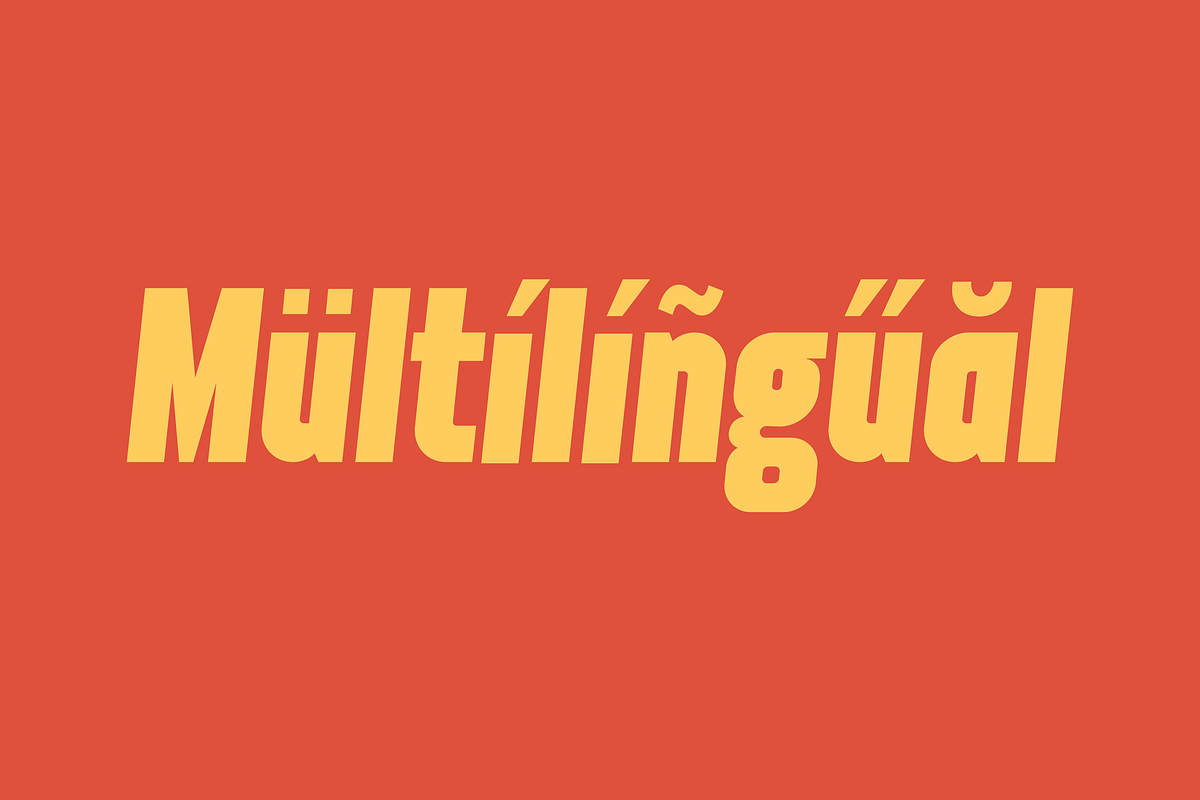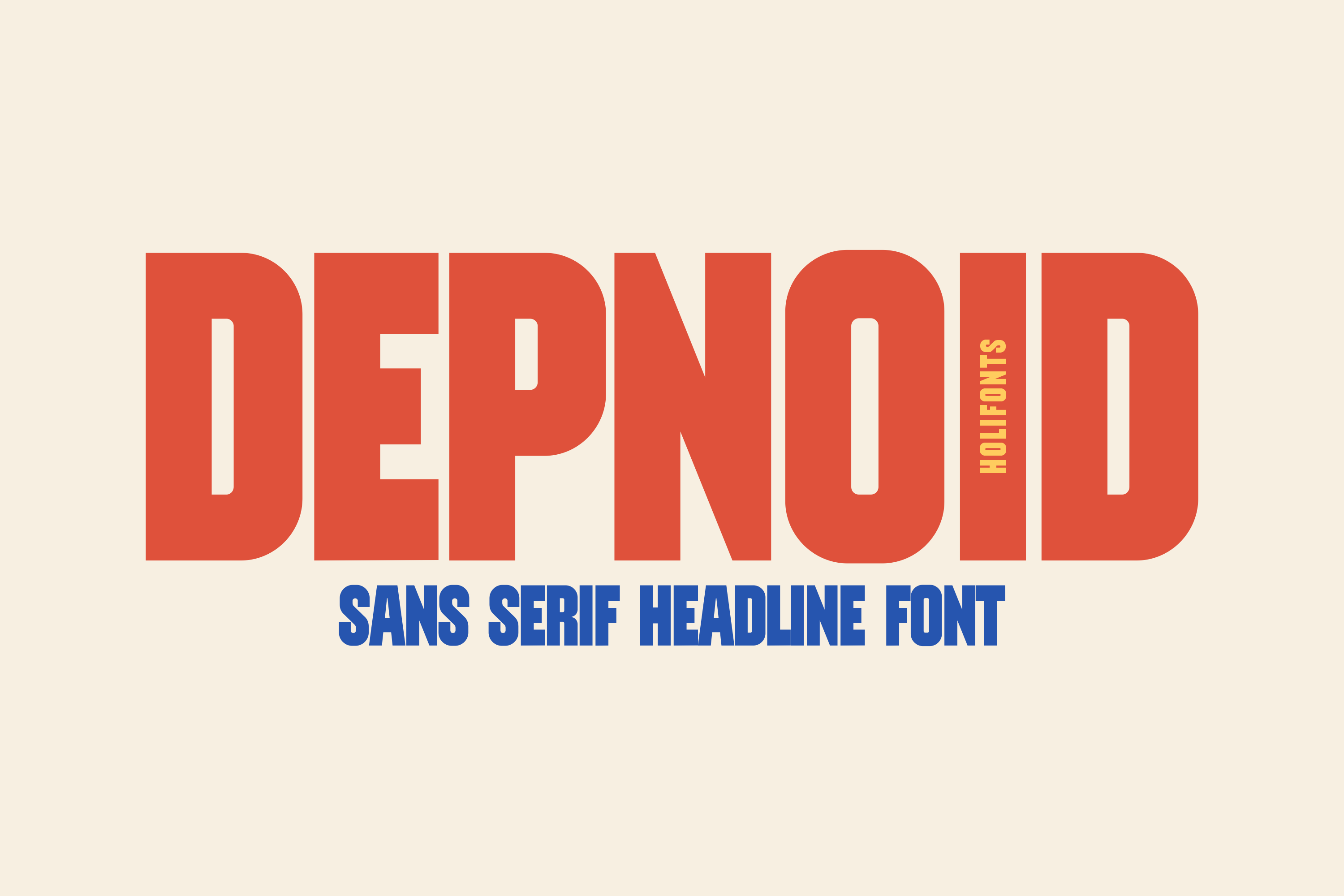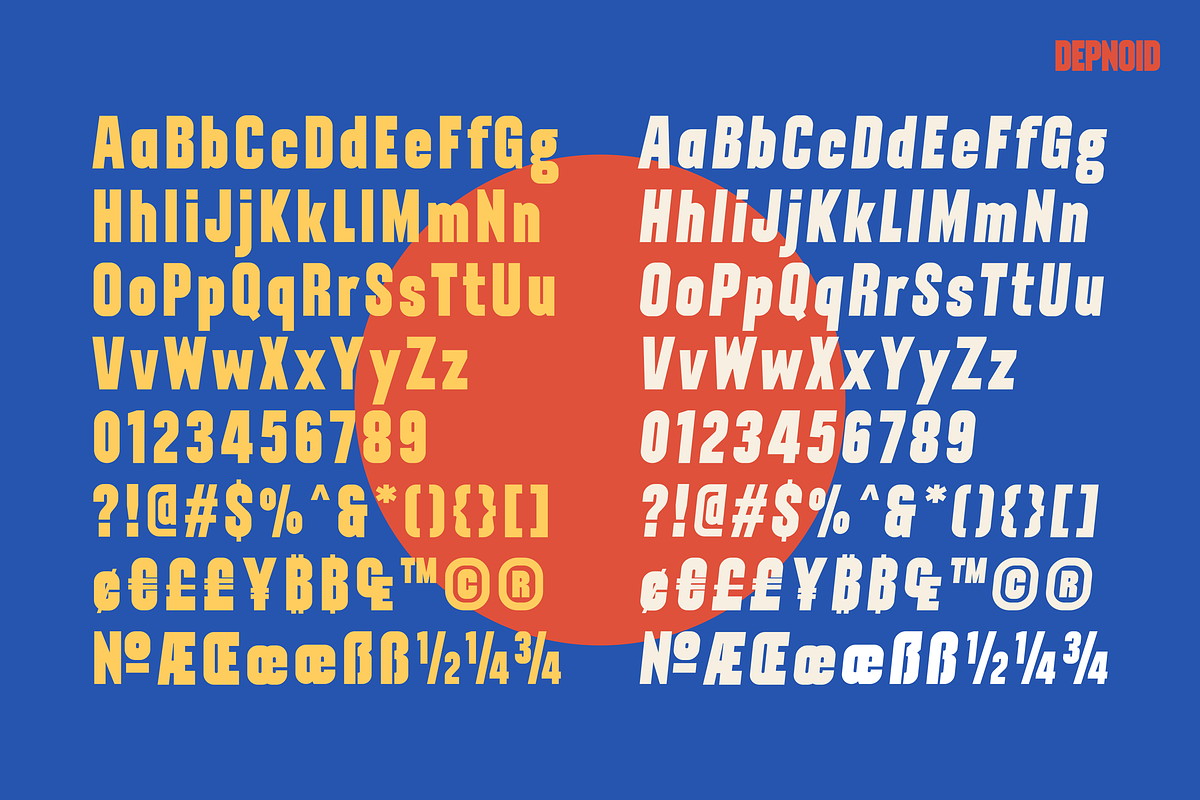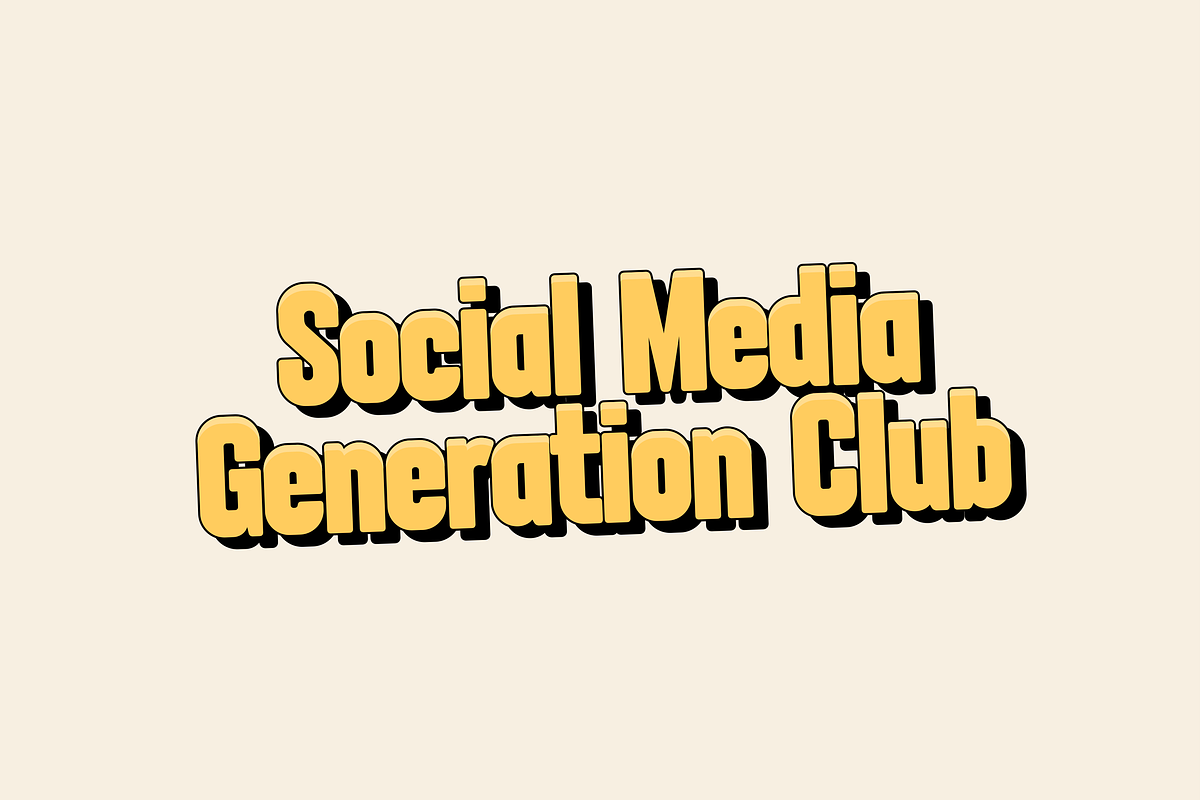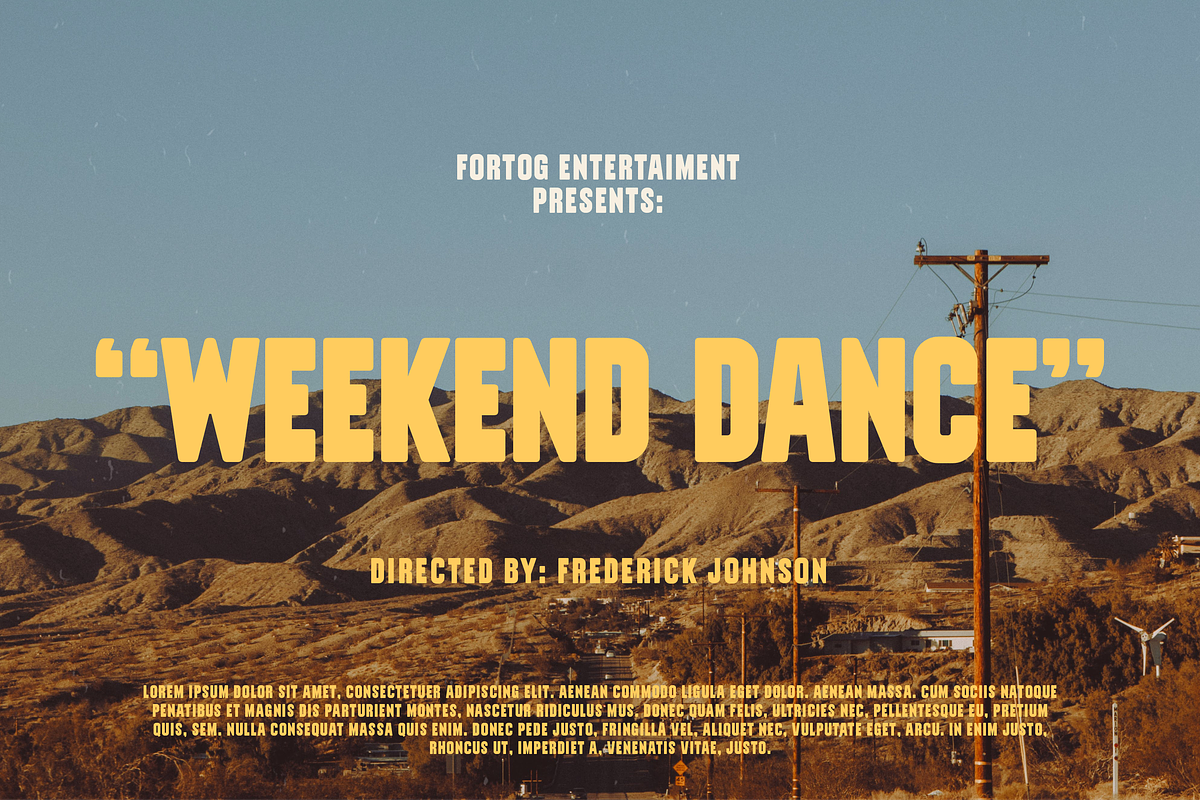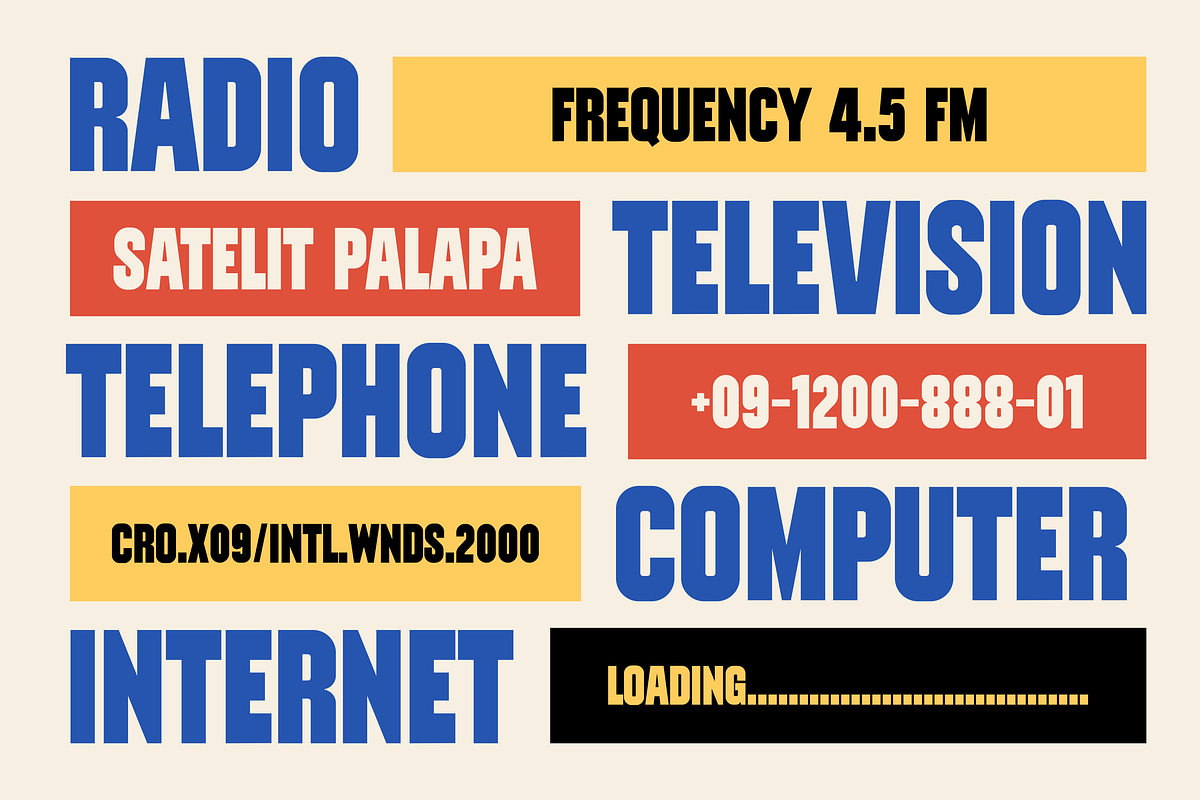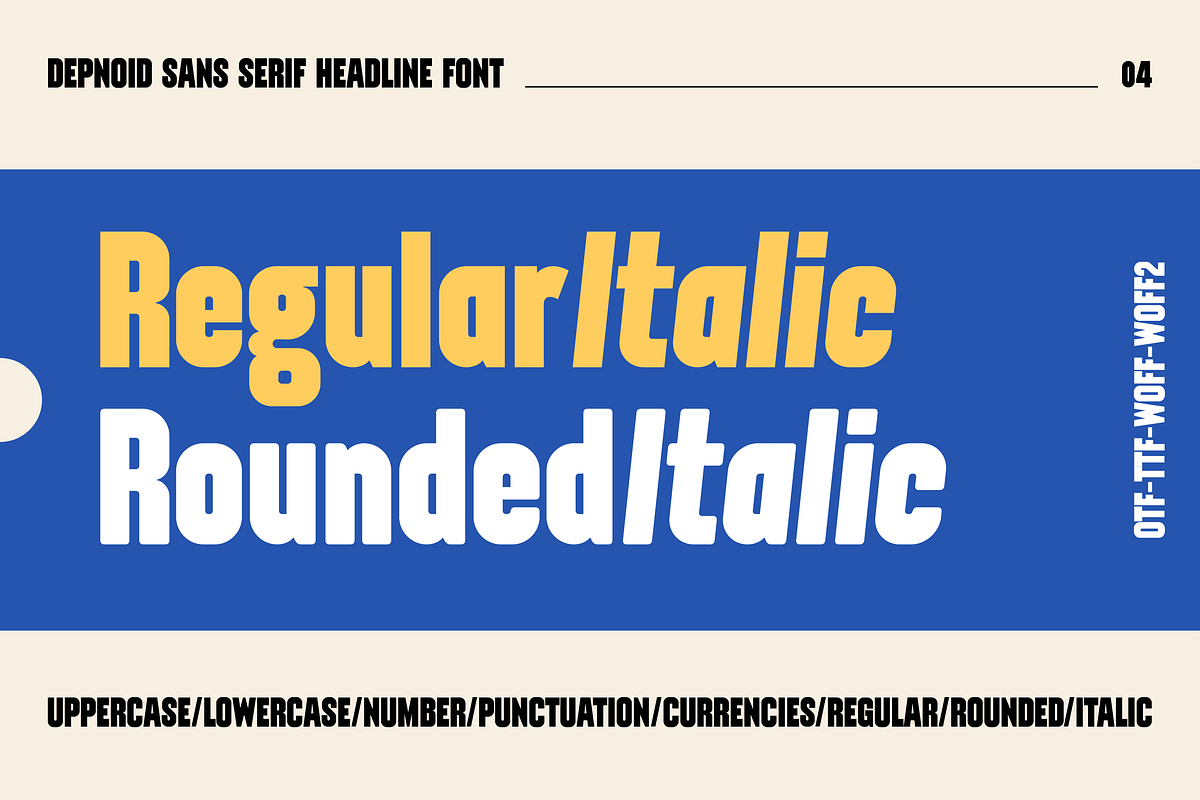
Depnoid Headline Font
Depnoid is a bold headline font with 2 styles, regular and rounded, available in italic too. Dipnoid will be good to use for posters, titles, logos, headlines in large sizes.